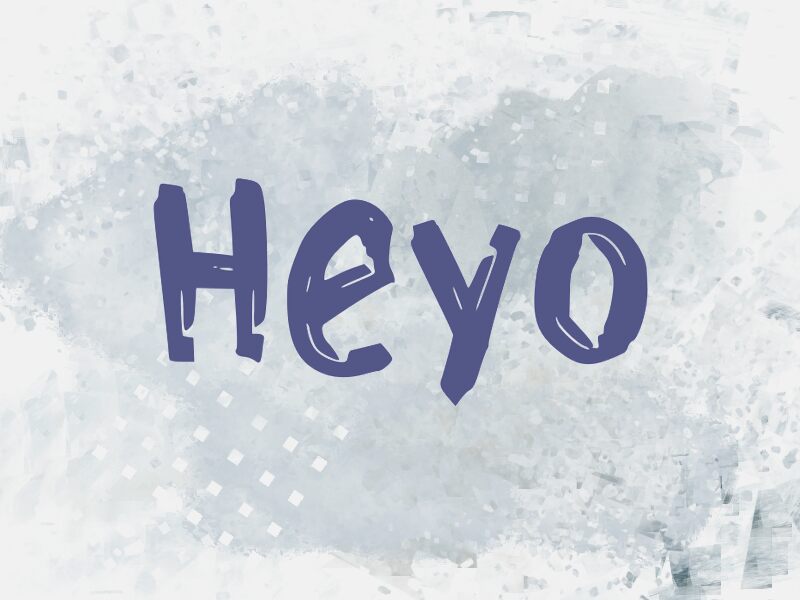
Heyo
Heyo font by wep is a display typeface with a free spirit and youthful bravado. Consult this font whenever your upcoming project could benefit from the presence of playful, informal letters. Heyo is bold, with high contrast rounded edges that allow its friendly charm to shine bright within your design frame. It has dynamic shapes and distinct curves that add a casual mood, hand-drawn feel, and animated character.
Get Heyo when creating poster designs, book covers and chapters titles, package labels, or fun signage elements. Banners? Business cards? You name it; if it’s design-related then you can benefit from this fantastic option within your imaginative arsenal.